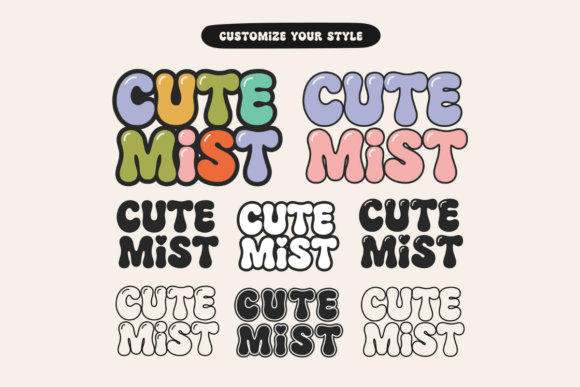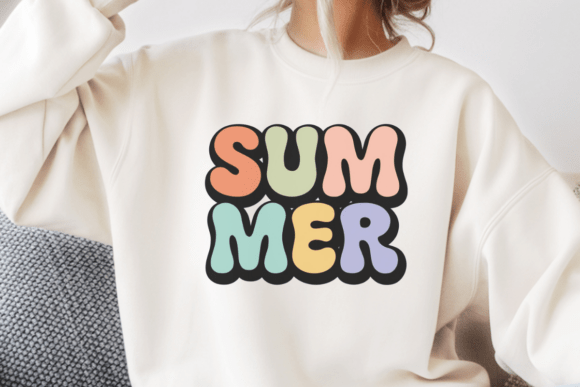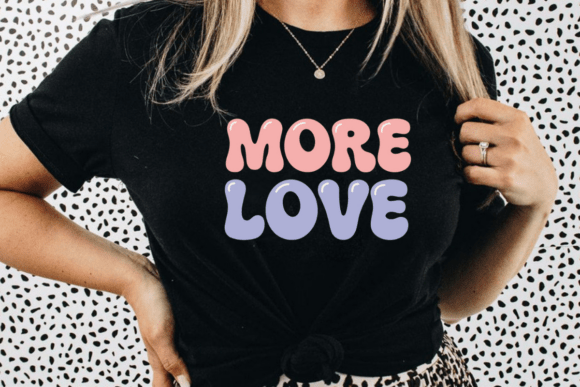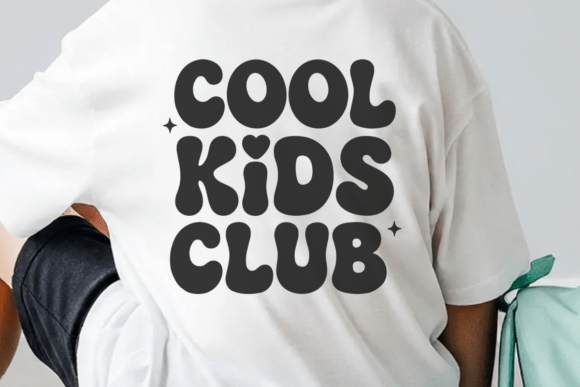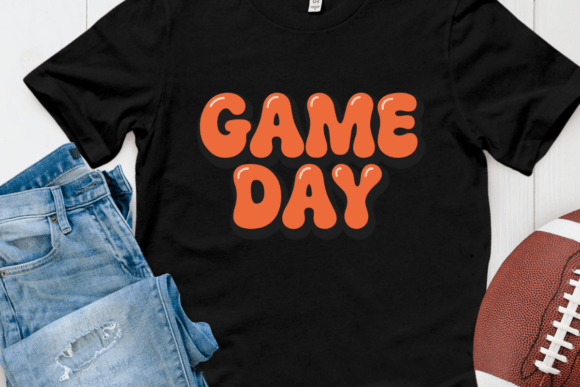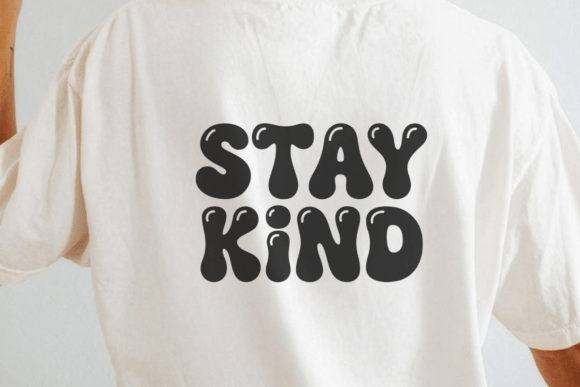
The Ultimate Font for Creative Expression: Cute Mist
Have you ever been in the middle of a design project, and suddenly, you’re stuck on finding the perfect font? I recall a recent experience where I was working on a client’s branding project, and they specifically asked for a font that was “fun, bubbly, and retro.” After hours of searching, I stumbled upon Cute Mist, a bubble, groovy, bubbly, retro, boho, and fun 70s display font that instantly caught my attention.
First Impressions: A Love Affair with Cute Mist
Cute Mist has become an instant favorite in my design arsenal, and I’m excited to share its awesomeness with you! Here are some things I love about this font:
- ✨ Bubbly and playful vibe: Cute Mist is perfect for designs that require a fun and carefree personality.
- ✅ Versatility: This font can be used for various projects, from crafts and digital design to presentations and greeting cards.
- 💫 Retro and boho charm: Cute Mist effortlessly captures the essence of the 1970s, adding a unique touch to your designs.
- 🎨 Creative freedom: With its extensive range of OpenType features, glyphs, and stylistic alternates, you can experiment with various styles to match your creative vision.
A Few Quirks to Consider
While Cute Mist is an amazing font, there are a few minor limitations to keep in mind:
- 🤔 Limited use for body text: Due to its playful and decorative nature, Cute Mist might not be the best choice for lengthy body text. Instead, opt for a clearer font for readability.
The Story Behind Cute Mist: A Designer’s Inspiration
Cute Mist was designed with the intention of capturing the carefree spirit of the 1970s. The designer aimed to create a font that would evoke feelings of nostalgia and playfulness, perfect for creative projects that demand a unique touch.
| Font Name | Cute Mist Font |
| Author | Jozoor |
| What type of projects is Cute Mist best suited for? | Cute Mist is perfect for creative projects like crafts, digital design, presentations, greeting cards, logos, branding, and quotes. |